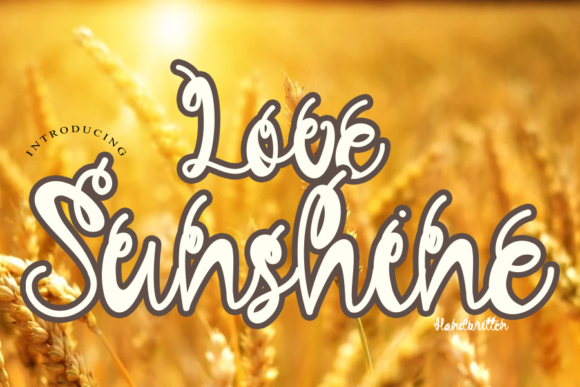
Love Sunshine Font
Searching for the ultimate font to add a touch of festive cheer to your Christmas labels? Look no further than Love Sunshine Font, a charming and versatile script font that will transform your designs into works of art.
Love Sunshine Font is the perfect choice for creating eye-catching labels that will make your Christmas gifts stand out. With its warm and romantic feel, this font will instantly evoke the spirit of the season. Its jolly and playful characters will add a touch of whimsy to your labels, making them both memorable and festive.
But Love Sunshine Font isn't just limited to Christmas labels. Its all-round flexibility makes it suitable for a wide range of creative projects, from invitations and greeting cards to social media posts and website banners. And with its endless variations, you'll never run out of inspiration for creating unique and stunning designs.